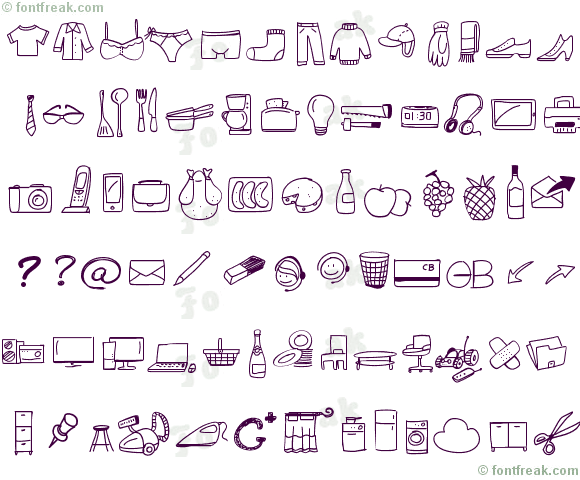
PeaxWebdesignFreeIcons
About PeaxWebdesignFreeIcons
PeaxWebdesignFreeIcons is a unique collection of icons designed by Peax Webdesign, categorized as dingbats. This font offers a playful and modern aesthetic, featuring a variety of simple yet recognizable visual symbols. The stroke weight is consistent throughout the icons, allowing for a clean and cohesive look. The designs are characterized by their rounded edges and minimalistic approach, ensuring that they remain versatile and easy to integrate into various projects. The spacing between each icon is well-considered, making it easy to use them individually or as a group without overcrowding the design.
The PeaxWebdesignFreeIcons font is perfect for several use cases, including website design elements, social media graphics, presentation slides, and marketing materials. Graphic designers will find this font particularly useful for creating engaging infographics or enhancing the visual appeal of digital content. Small business owners can leverage these icons to elevate their branding through eye-catching visuals on product packaging and promotional flyers. Additionally, content creators can incorporate these icons into their blogs or online articles to add a touch of creativity and clarity.
Targeted primarily at graphic designers, small business owners, and content creators, the PeaxWebdesignFreeIcons font free download provides an accessible resource for those looking to enhance their visual communication. With its modern design and practical applications, this font stands out as a valuable addition to any creative toolkit. Whether you are crafting a website, designing a marketing campaign, or simply looking to spice up your digital content, these icons offer an appealing solution that balances style and function.